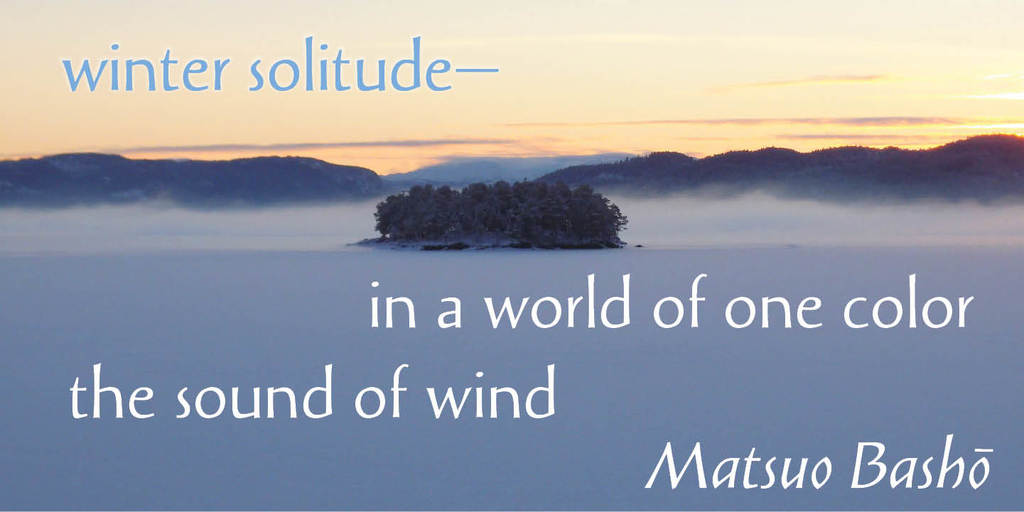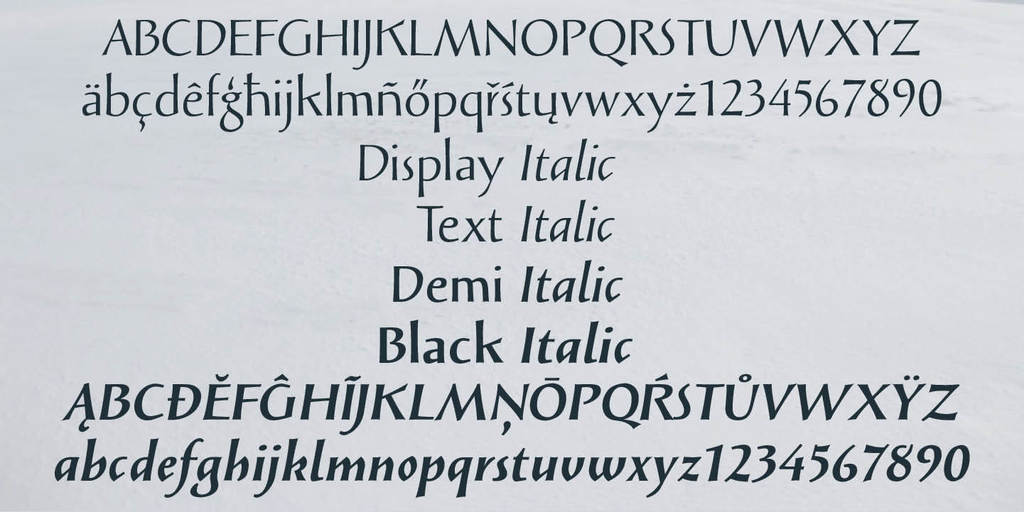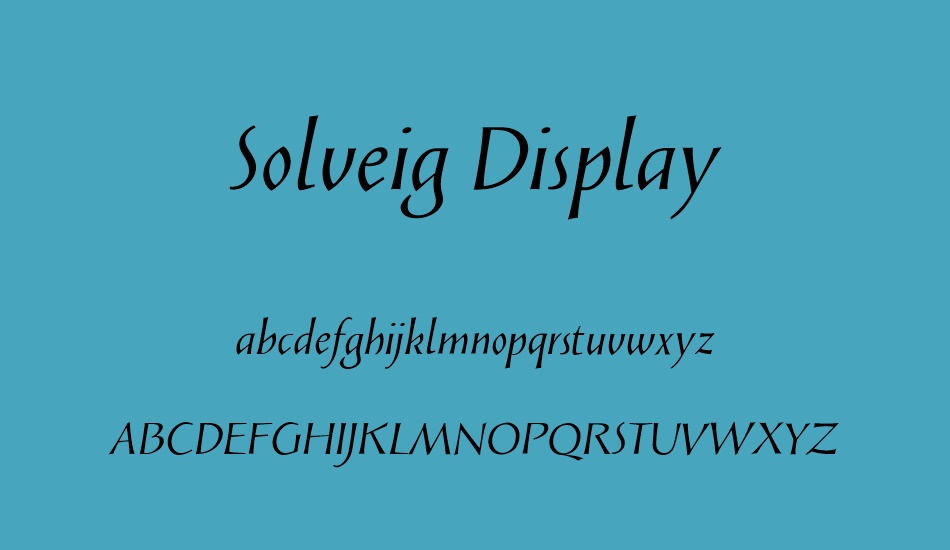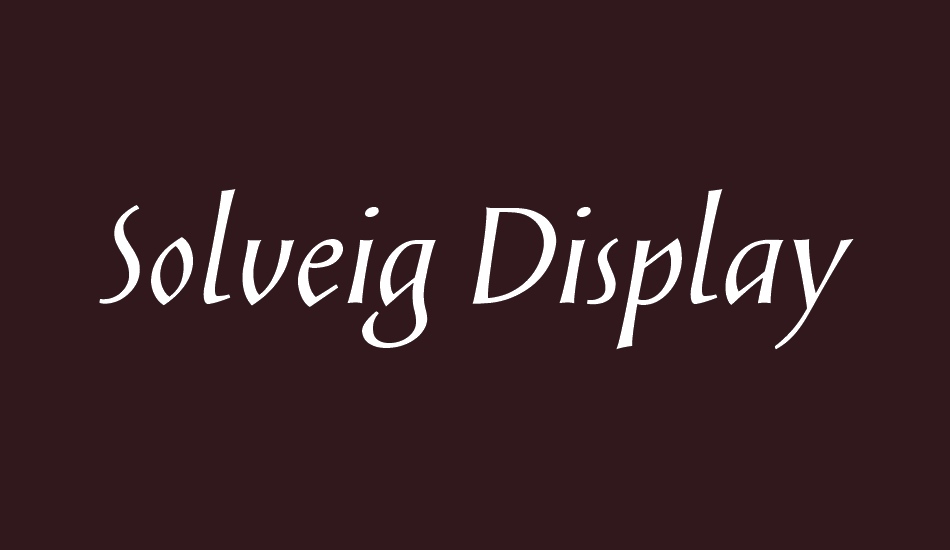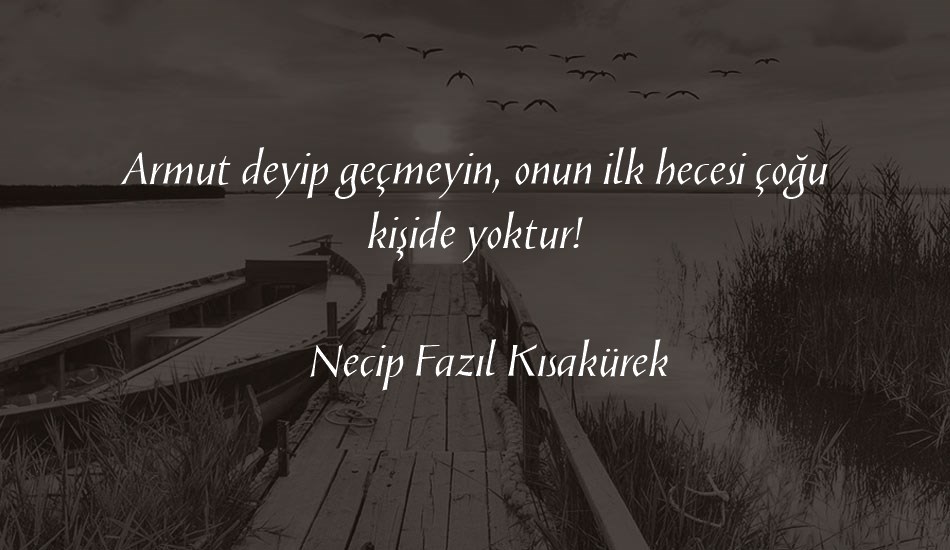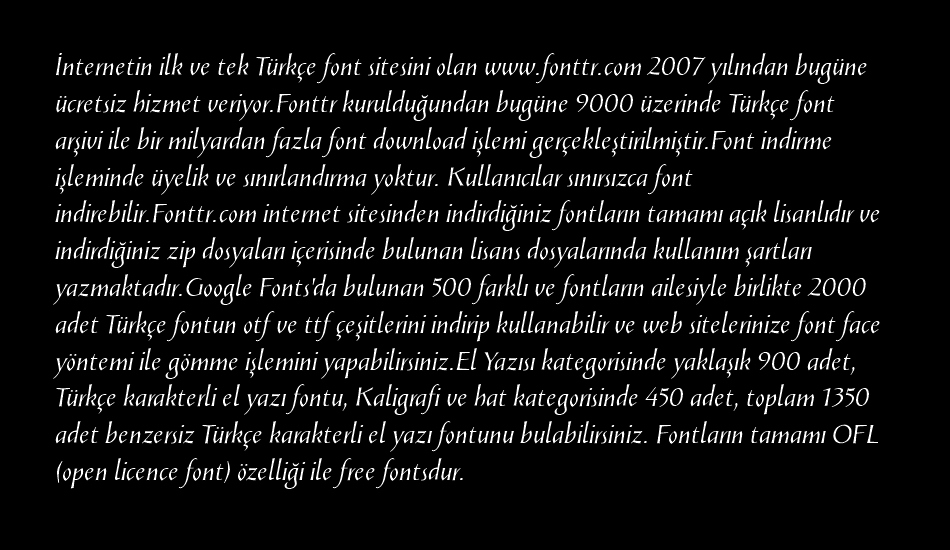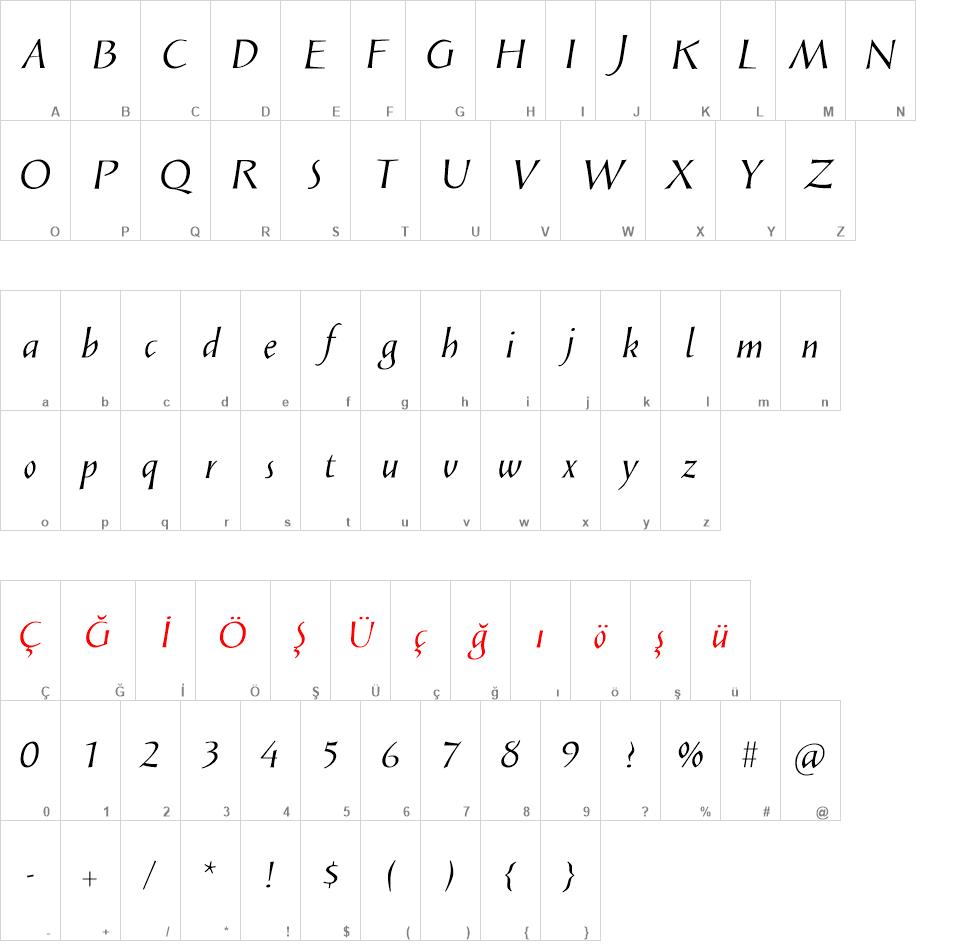
Solveig Font Ailesi
Solveig is a stressed sans that draws inspiration from calligraphy and classic inscriptions. Its ascenders and descenders are long and expressive; in place of finials, its terminals taper to points. It is well suited for display, but remains very readable at smaller sizes in longer passages.
Solveig is named after Edvard Grieg’s “Solveig’s Song,” a quiet piece of concentrated, chilled emotion that accompanied me through the entire design process.
Solveig Display font